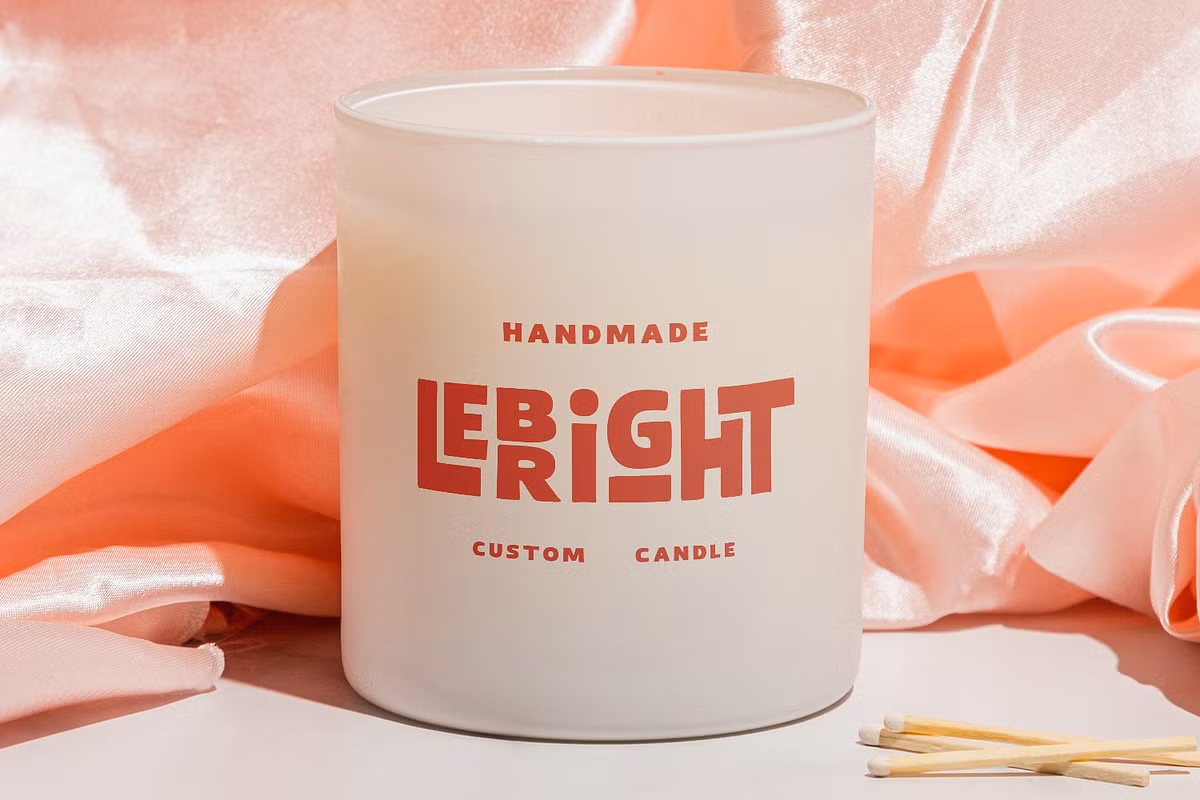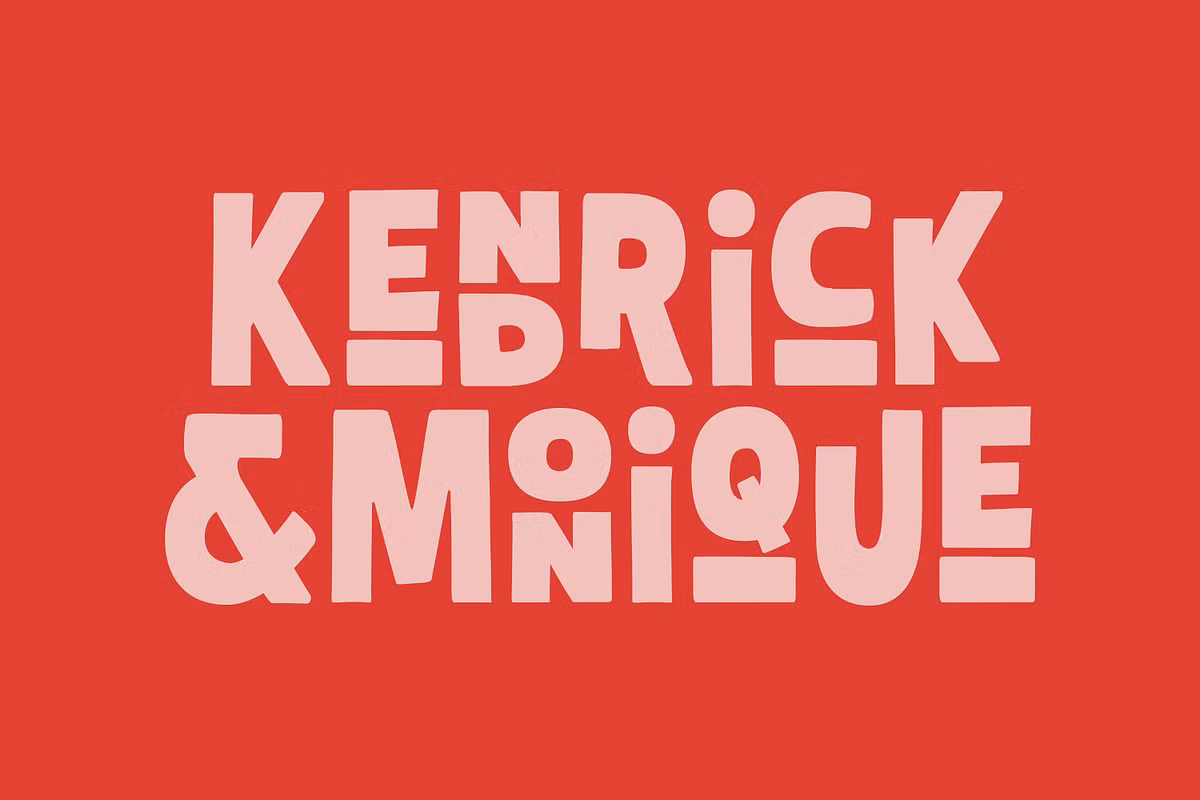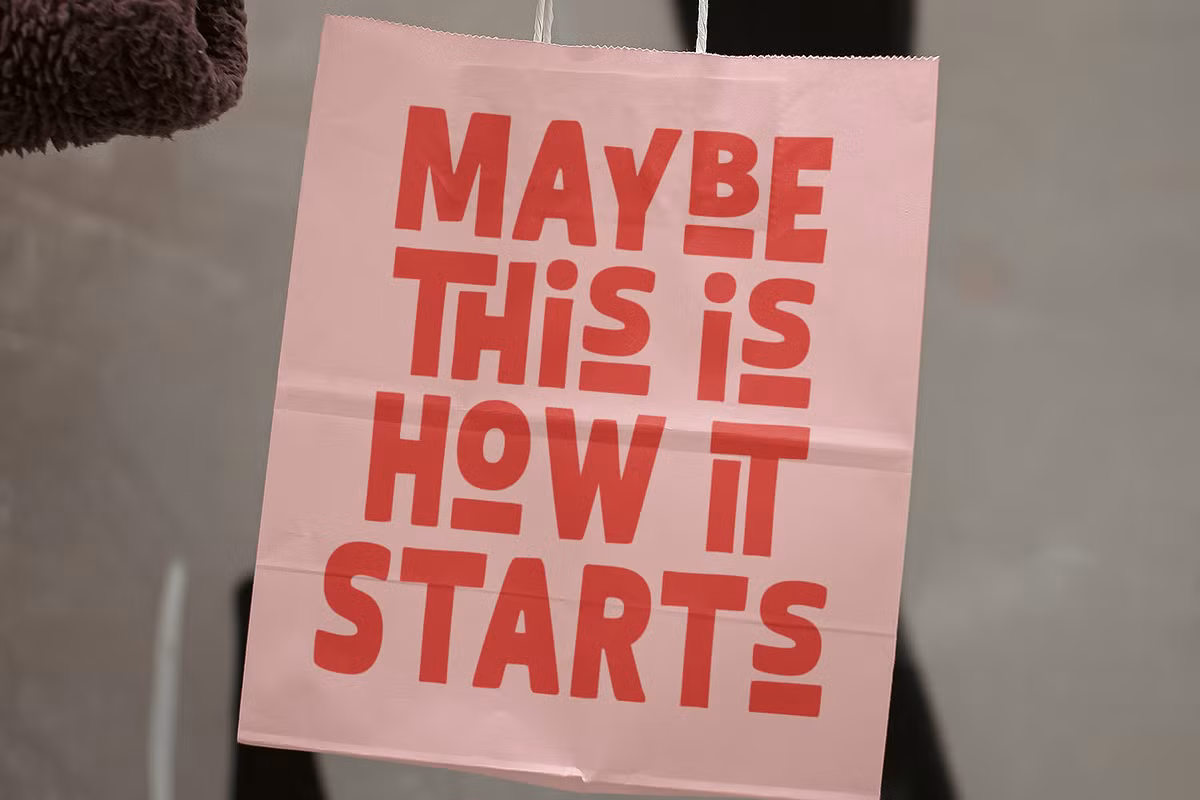
Thierry Leonie: Bold and Playful Display Font for Creative Designs
Introducing Thierry Leonie. Meet Thierry Leonie, a font that feels like a friend. Thierry Leonie is a display font that mixes the weight with a condensed shape. Thierry Leonie uses a sans‑serif style. Includes many ligatures. I use Thierry Leonie for the headlines, the logos, and the posters. I notice that Thierry Leonie adds personality and warmth to the designs. Enjoy the friendliness of Thierry Leonie. I see the versatility of Thierry Leonie when I try ideas. Let your creativity shine!
I think the design style of Thierry Leonie shows the charm that Thierry Leonie brings. Thierry Leonie has a condensed shape. The bold shape lets Thierry Leonie stand out. The condensed shape also keeps a level of class. The sans‑serif design adds a touch. The modern touch lets Thierry Leonie work in places. The rounded edges and playful curves give Thierry Leonie a feel. The friendly feel makes Thierry Leonie good for casual design.
Thierry Leonie has ligatures. The ligatures make the text look nice. They help the text read easier. They give your designs a look. When you are creating headlines or body text Thierry Leonie draws attention. Makes the text feel warm.
Character Sets
Thierry Leonie has a character set. The character set includes letters, lowercase letters, numbers, punctuation marks, and ligatures. I use the character set to write ideas and emotions in my typography. The character set lets my typography show ideas and emotions.
I have found that the font supports languages. The font works well for projects. With Thierry Leonie, I can make sure that my designs connect with audiences while keeping a nice look. The careful design of each character helps the text flow smoothly. I need flow of text for content that looks good.
I have found the versatility of Thierry Leonie makes Thierry Leonie a good fit for projects. Here are some use cases where Thierry Leonie shines:
- Headlines: In print or digital media, Thierry Leonie can make headlines that catch the eye. Headlines also show the core of your message.
- Logos: The font feels playful. The font works well for branding projects. The font’s unique design sets the logo apart. The logo becomes easy to remember and interesting.
- Posters: I like Posters with Thierry Leonie. The bold font makes the message on the Posters stand out. The playful details give the Posters an inviting feel.
- Social Media Graphics: In the world of media Thierry Leonie helps your posts stand out and get more engagement. I have used Social Media Graphics. Seen Social Media Graphics bring a cheerful look that matches the feel of social platforms.